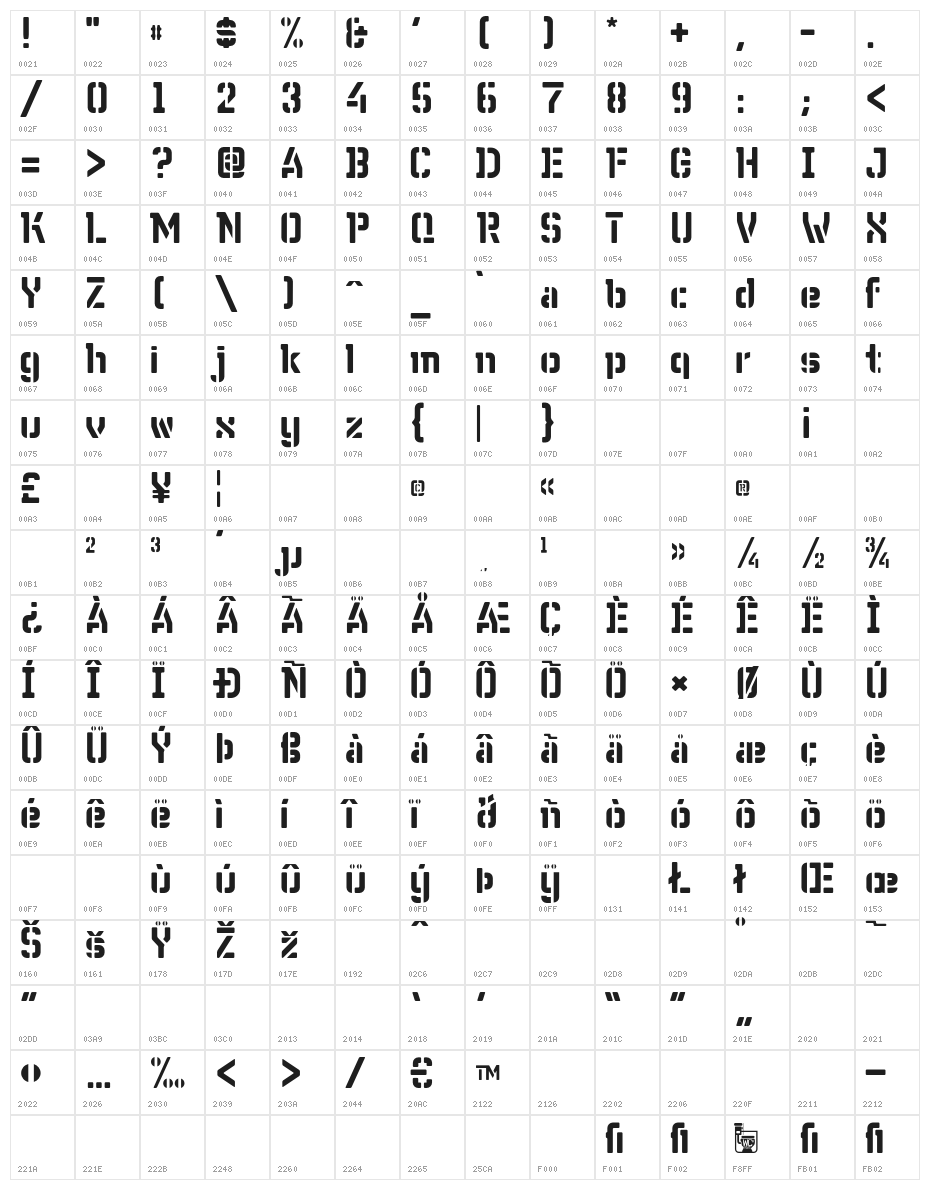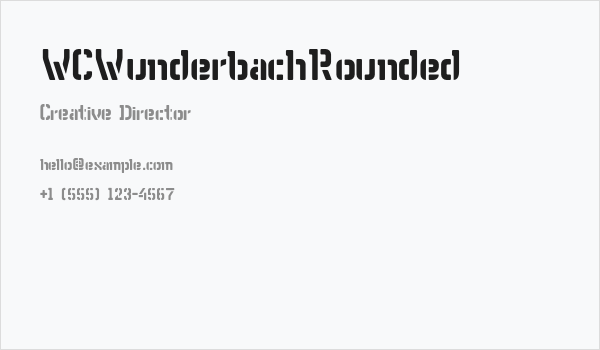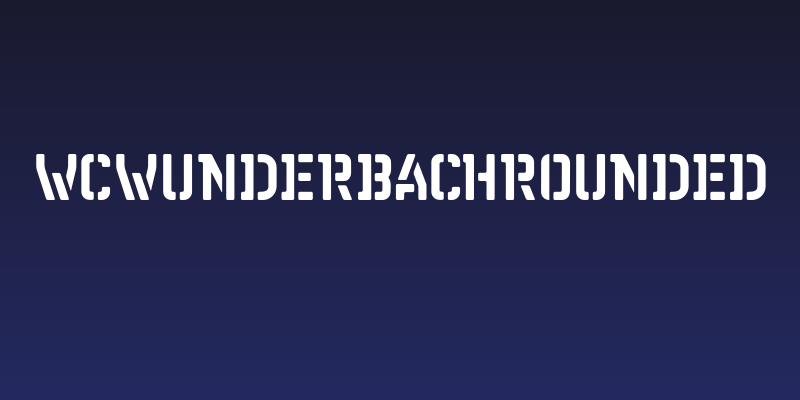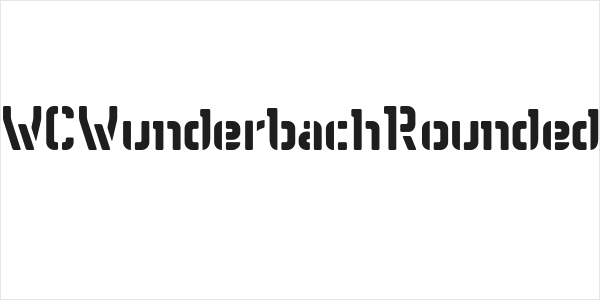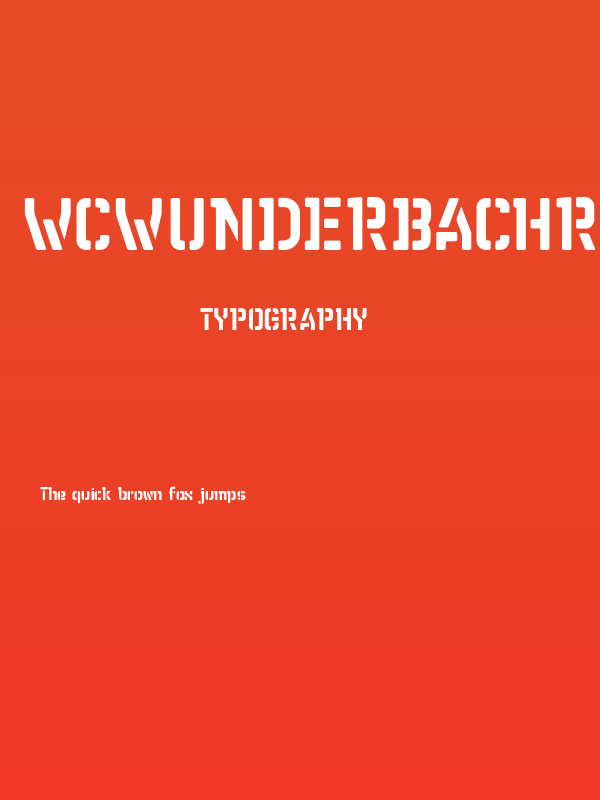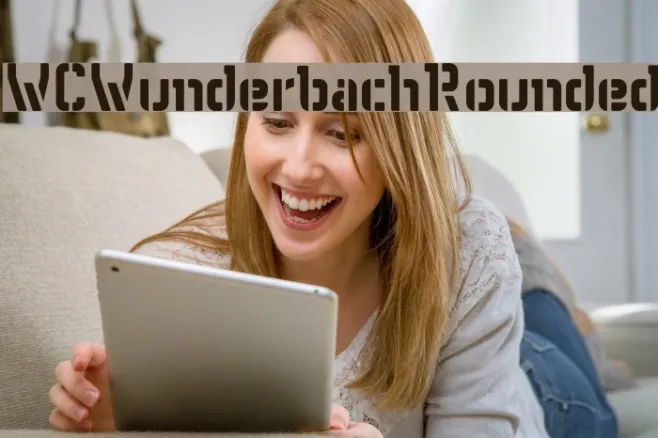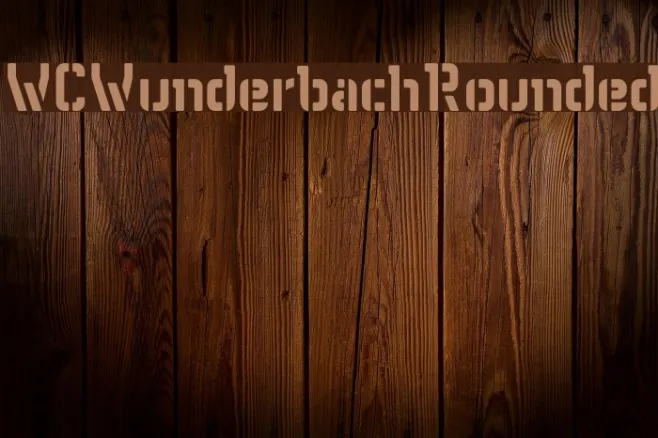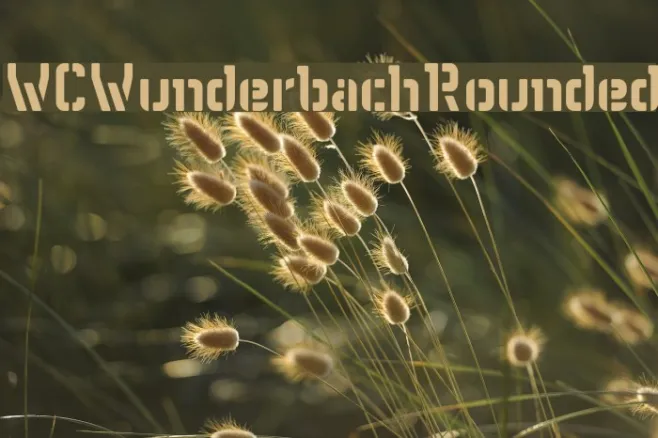
WCWunderbachRounded Font
WCWunderbachRounded Description
This font features a bold and geometric design with rounded edges, creating a modern and industrial feel. The characters are constructed with a stencil-like appearance, where certain sections are deliberately disconnected, adding a unique and edgy aesthetic. The uppercase and lowercase letters maintain a consistent style, with a strong emphasis on vertical and horizontal lines. Numbers and special characters follow the same design principles, ensuring uniformity across all glyphs. The overall look is striking and attention-grabbing, making it ideal for projects that require a bold statement.